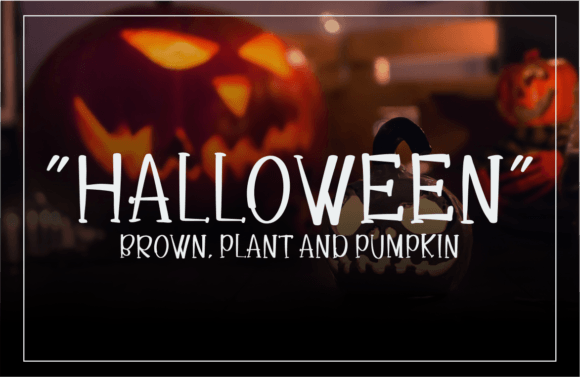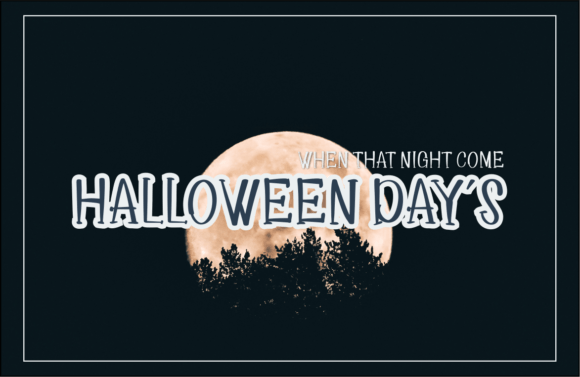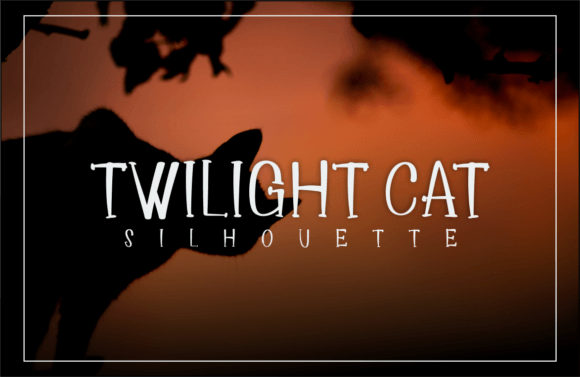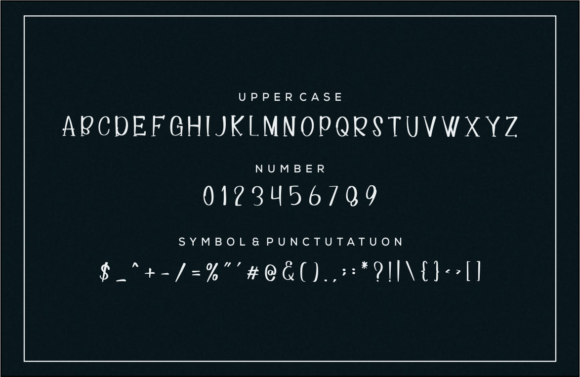
Introduction to Scared Rude Font
As a designer, you’ve probably found yourself staring at a blank canvas, trying to conjure up the perfect font to bring your creative project to life. The right font can make all the difference, setting the tone and atmosphere of your design. And what better time to unleash your creativity than with the Scared Rude Font, designed specifically with the spooky spirit of Halloween in mind.
This free download is a high-quality design resource, perfect for adding a touch of eeriness to your next project. With its transparent background and handwritten script format, the Scared Rude Font is sure to make a statement. Whether you’re designing a spooky poster or creating a haunting website, this font is sure to bring your vision to life.
Key Features of Scared Rude Font
- High-quality design resource for creative projects, ideal for designers and artists.
- Scared Rude Font features a transparent background, allowing for seamless integration with any design.
- Unique, bold, and edgy design style, perfect for adding a touch of attitude to any creative project.
Honest Review: Scared Rude Font
I recently stumbled upon the Scared Rude Font, and I must say, it’s been a mixed bag for me. On one hand, this free download is a great addition to any designer’s toolkit, offering a unique and quirky touch to creative projects. The font’s playful nature is perfect for adding a bit of whimsy to designs that need a bold statement.
- ✨ Unique and quirky design: The Scared Rude Font stands out from the crowd, making it perfect for designers looking to add some personality to their work.
- ✨ High-quality graphics: The font’s design is crisp and clear, even when used on a transparent background.
- ⚠️ Limited versatility: The font’s bold and playful nature may not be suitable for all types of designs, particularly those requiring a more professional tone.
- ⚠️ Limited font sizes: The font may not be suitable for large-scale use, as its quirky nature can become overwhelming at larger sizes.
Overall, the Scared Rude Font is a solid addition to any designer’s toolkit, offering a unique and quirky touch to creative projects. While it may not be suitable for all types of designs, its high-quality graphics and free download make it a great resource for designers looking to add some personality to their work.
Common Use Cases for the Scared Rude Font
The Scared Rude Font is a versatile font that can be used in a variety of creative projects, including logos, posters, social media graphics, and more. It’s perfect for designers looking for a unique and eye-catching font to add to their designs.